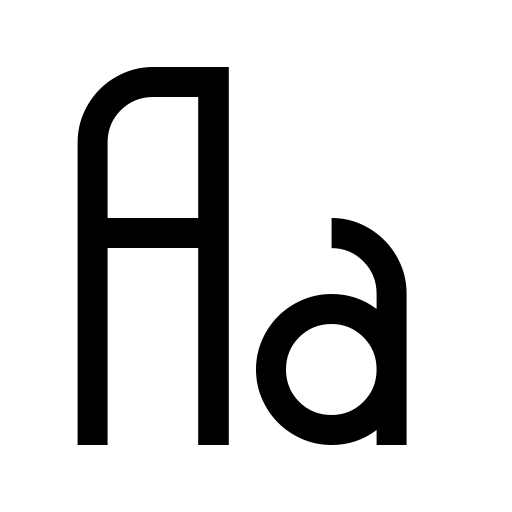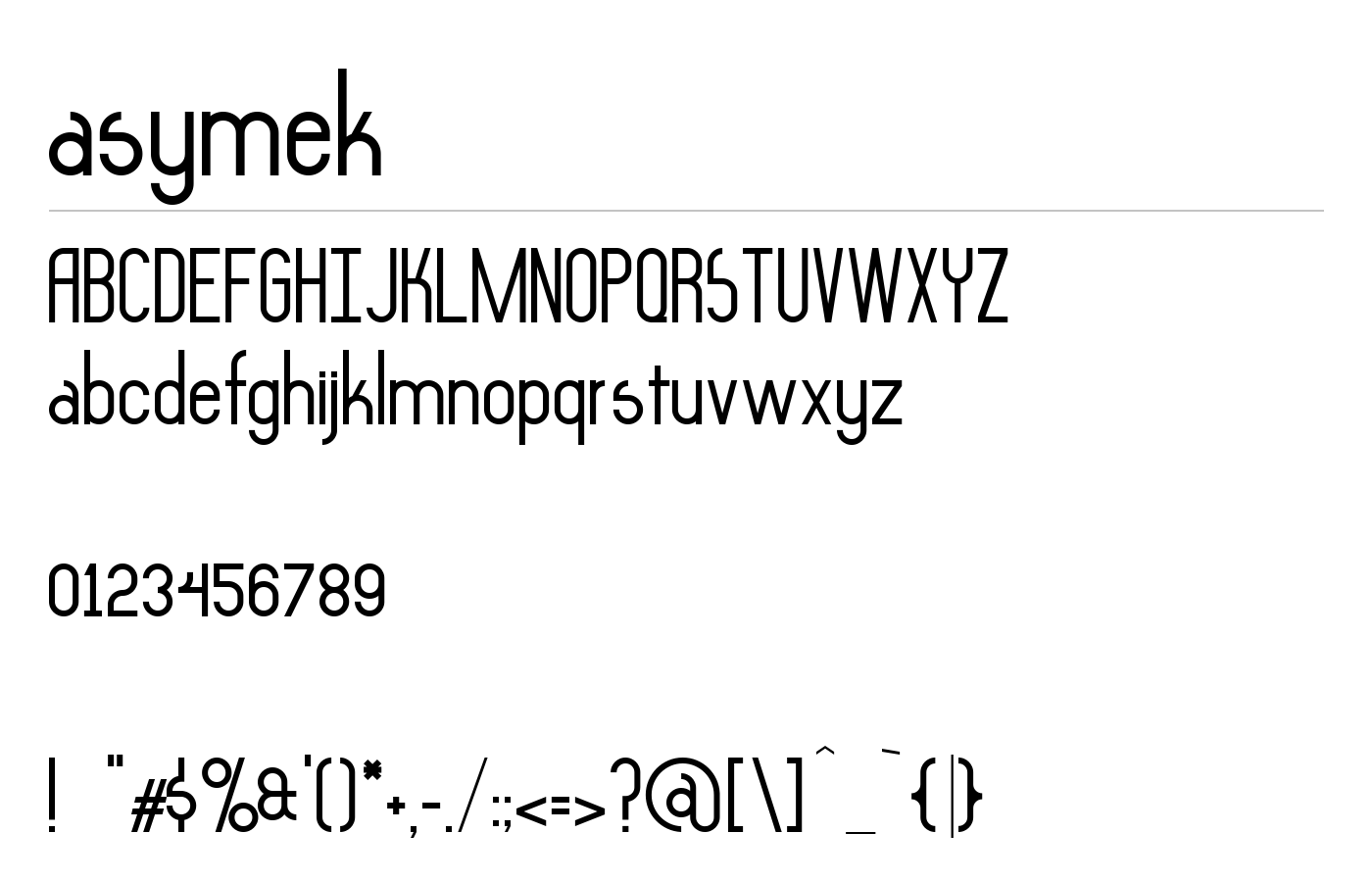
Asymek is a narrow, modern sans serif font with a clean, geometric structure and subtle asymmetrical details that add unique character. Its tall x-height and consistent stroke weight give it a sleek, futuristic look ideal for contemporary branding, editorial headlines, and stylish tech-focused design projects. This font works well where a minimalist yet distinctive appearance is needed to convey innovation and sophistication.
asymek Font
About asymek Font
| Font family | asymek Font |
| Designer | Nick Polifroni |